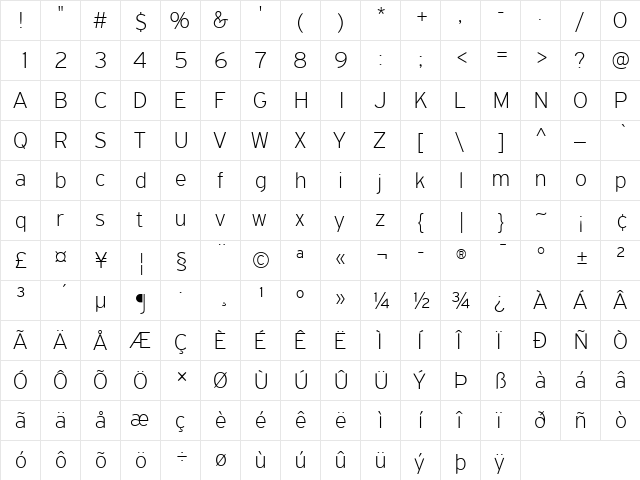
PF Highway Sans Pro Thin
| Foundry | Parachute蠗orldwide |
| Designer | Panos Vassiliou |
Design Context for PF Highway Sans Pro Typeface
PF Highway Sans Pro is a composed and adaptable typeface that performs quietly and consistently across a wide range of design contexts. The delicate stroke weight brings airiness and refinement to layouts.